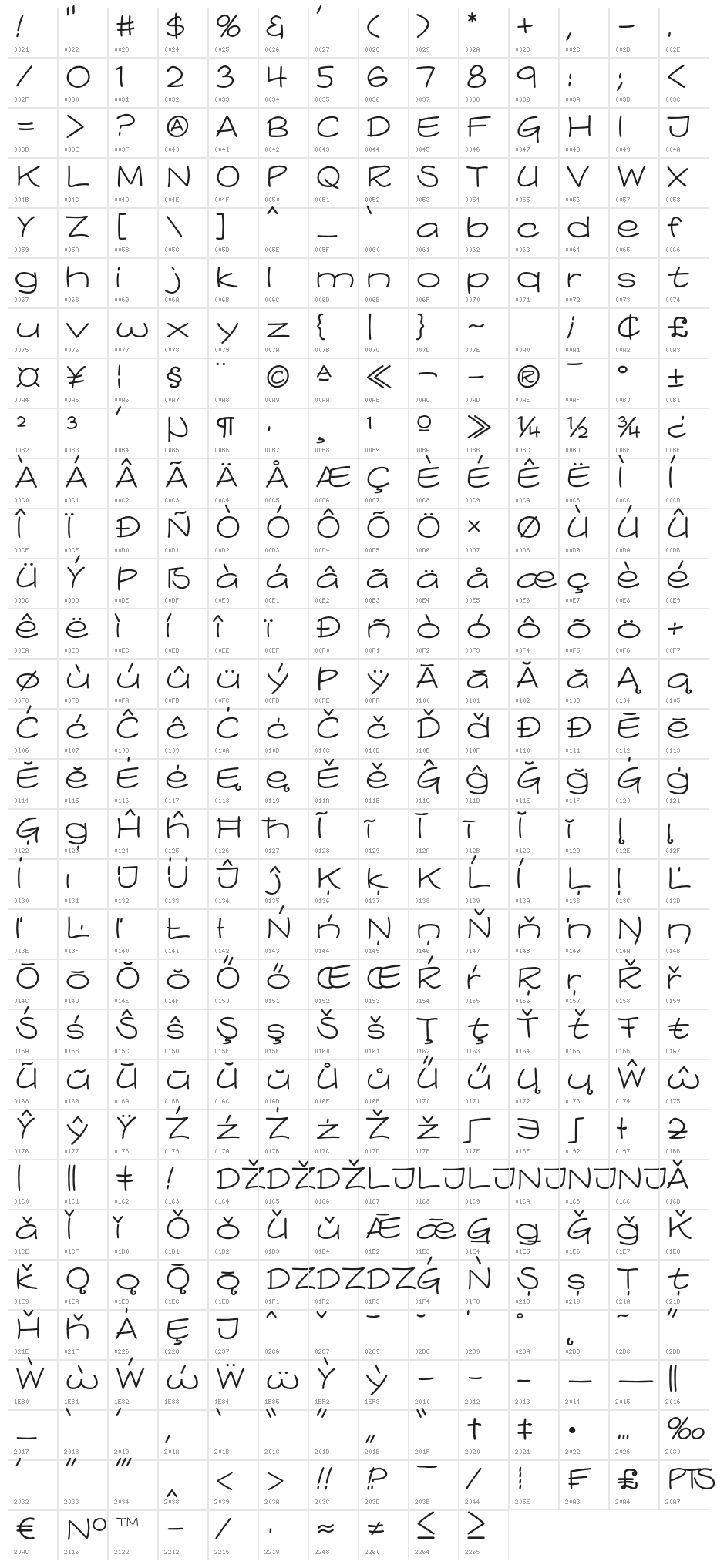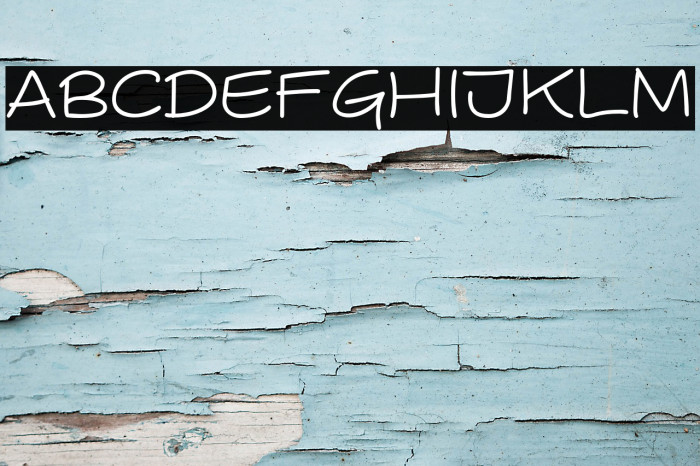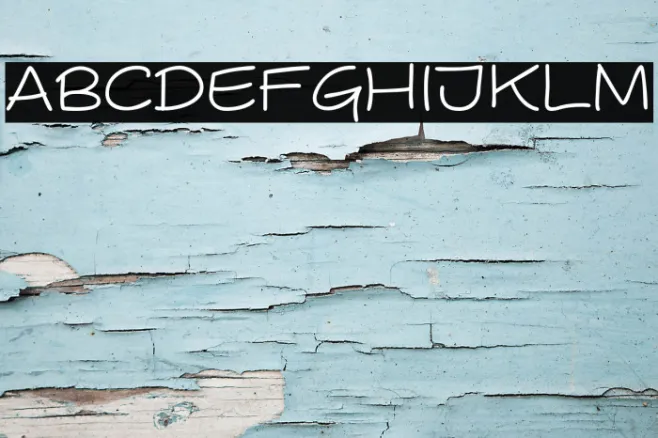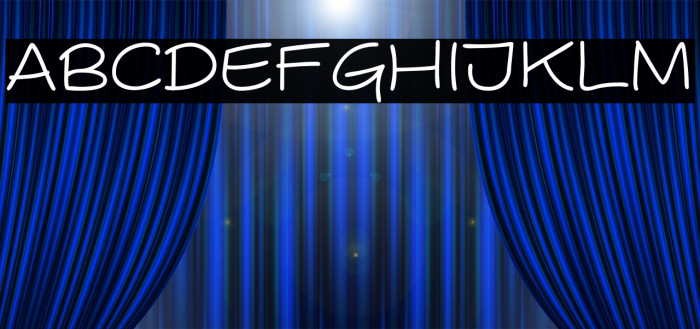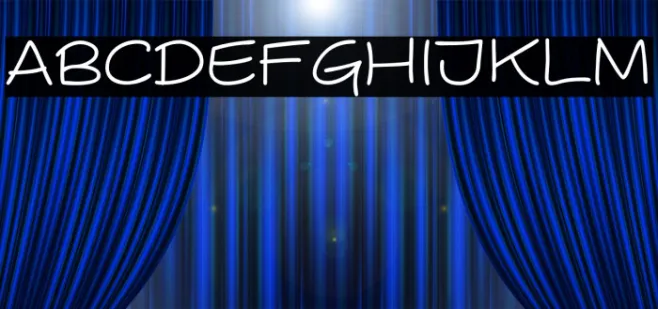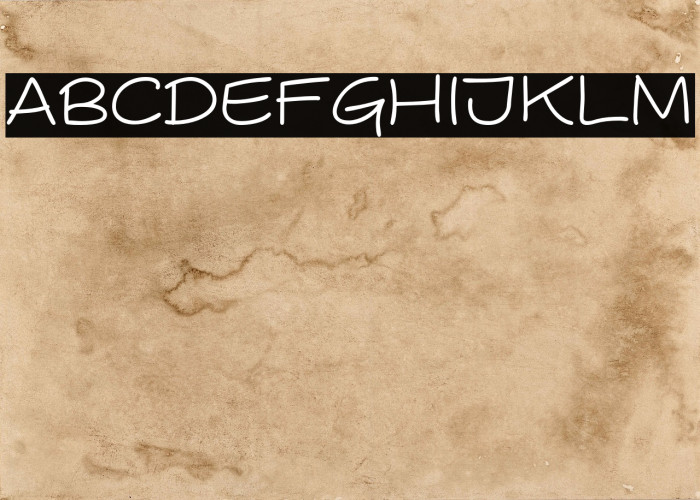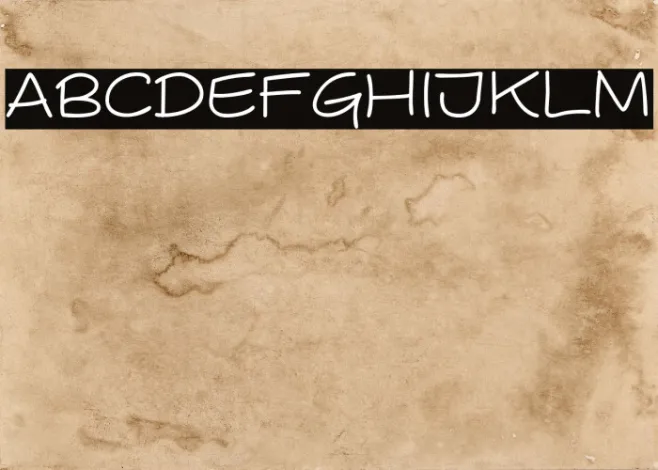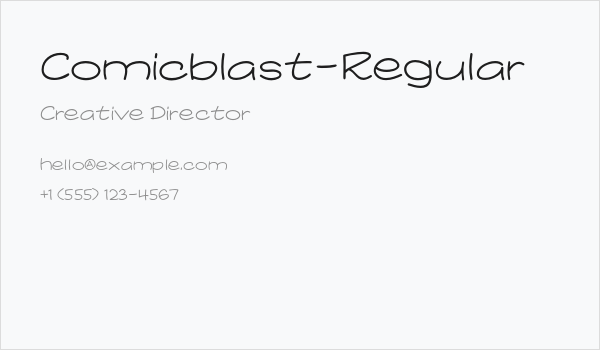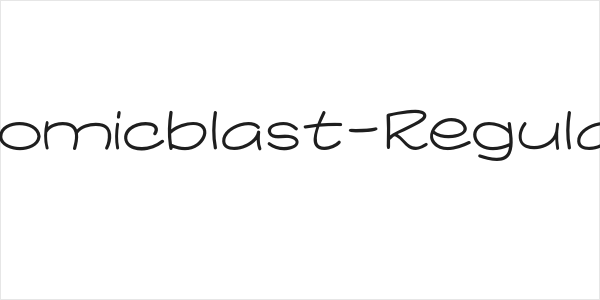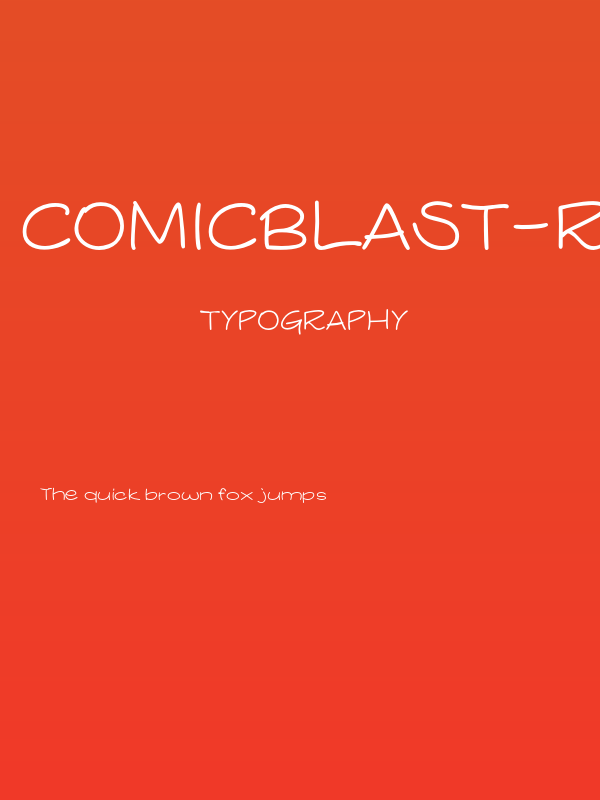
Comicblast-Regular Font
Comicblast-Regular Description
This playful and informal font features a handwritten style with smooth, rounded edges and a casual appearance. The letters are slightly slanted, giving a dynamic and lively feel. The uppercase and lowercase characters maintain a consistent flow, while the numerals and special characters complement the overall aesthetic. The font's design is approachable and friendly, making it suitable for projects that require a personal touch. Its legibility is maintained across different sizes, ensuring versatility in various applications.
| Use Case | Headlines, Informal text, Branding |
| Proposed Projects | Ideal for comic books, children's books, informal invitations, greeting cards, and playful branding projects. |